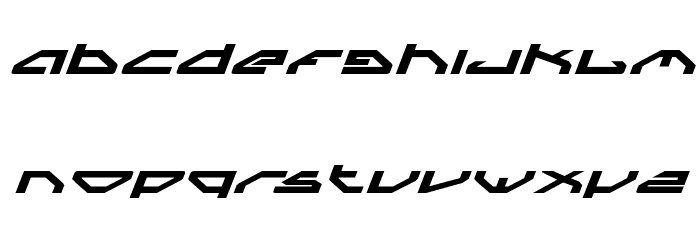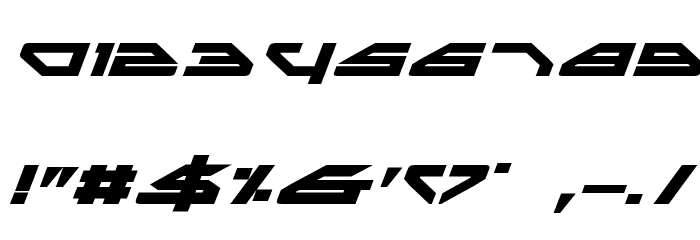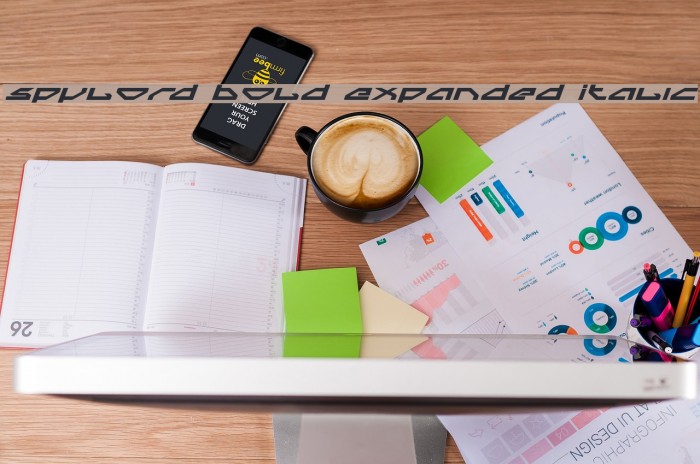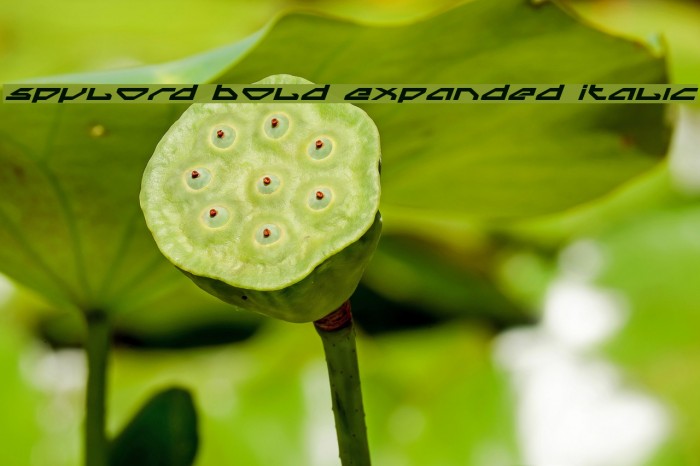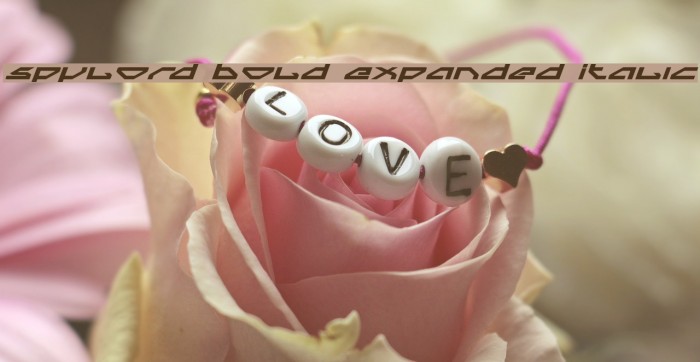
Spylord Bold Expanded Italic Font
This font exhibits a futuristic and dynamic style, characterized by its bold and expanded letterforms. The italic slant adds a sense of motion and speed, making it ideal for projects that require a modern and edgy appearance. The characters are angular and geometric, with sharp edges and a consistent stroke width that emphasizes its boldness. The expanded width provides a sense of openness and space, enhancing readability while maintaining a unique aesthetic. The font's design is suitable for attention-grabbing headlines, logos, and branding materials that aim to convey innovation and forward-thinking.
A bold, expanded, and italic font with a futuristic and dynamic style.
- Proposed Projects: Ideal for sci-fi themed designs, tech company logos, video game titles, and modern branding projects.